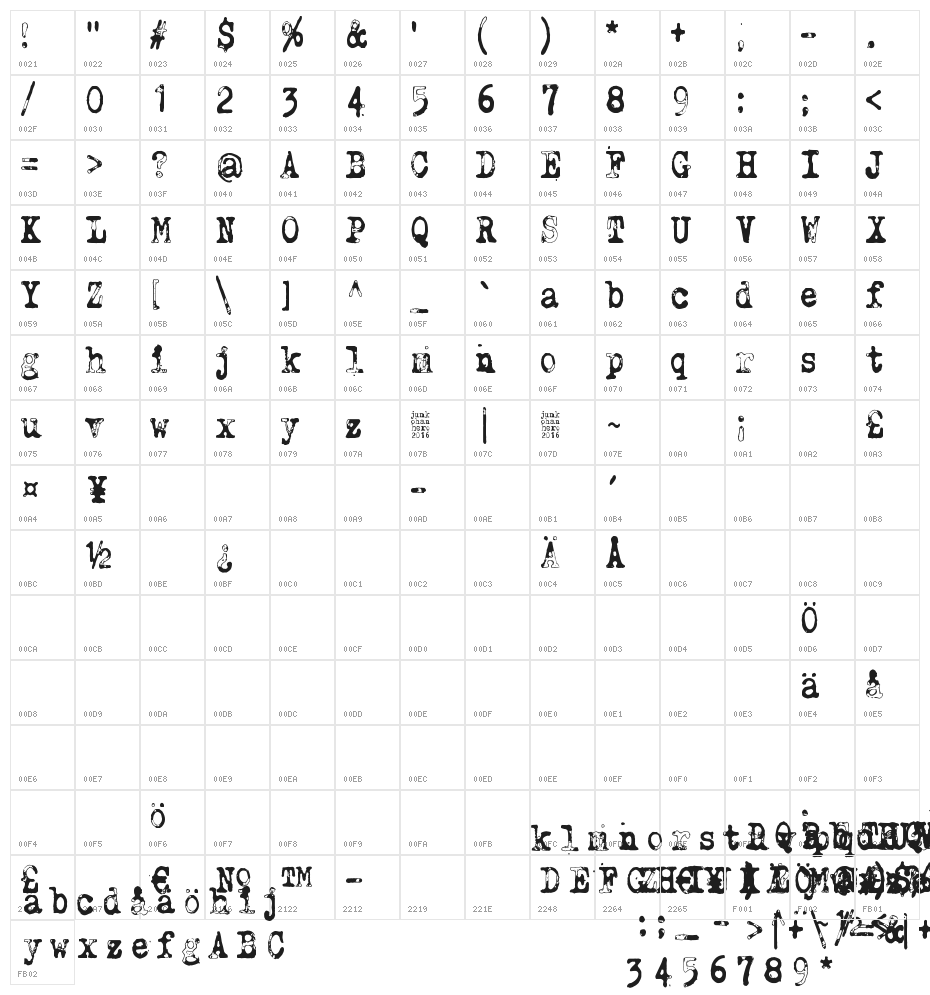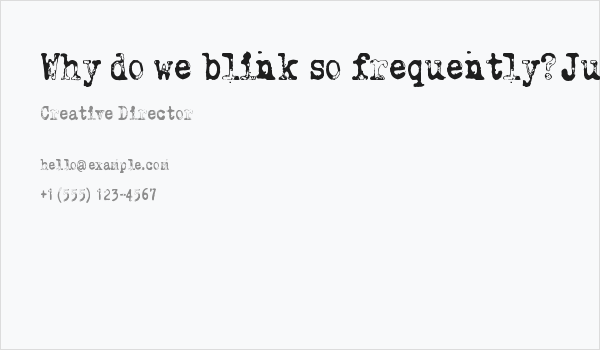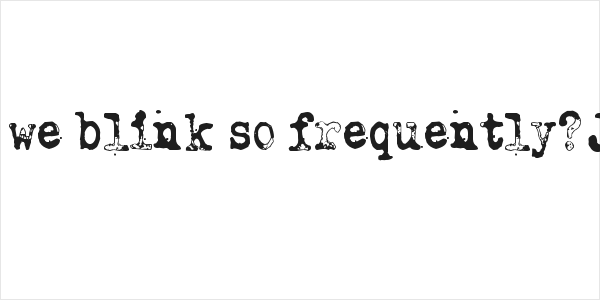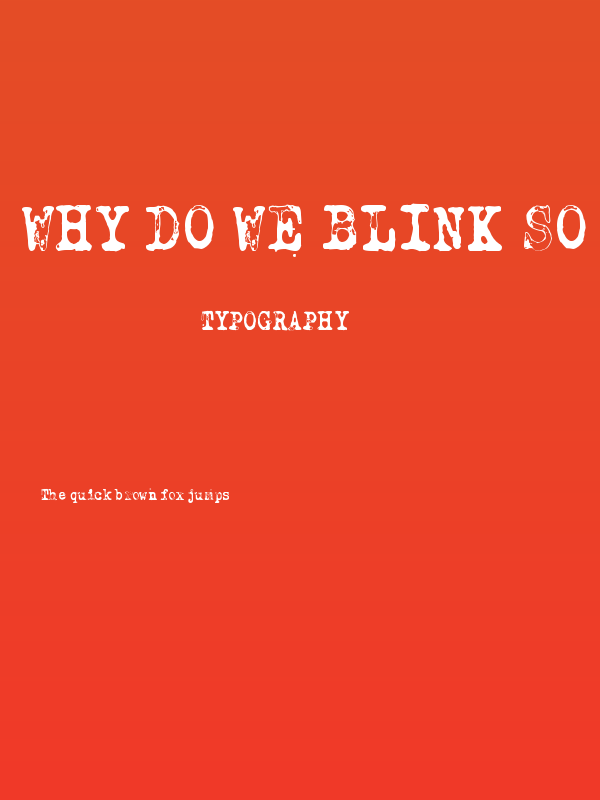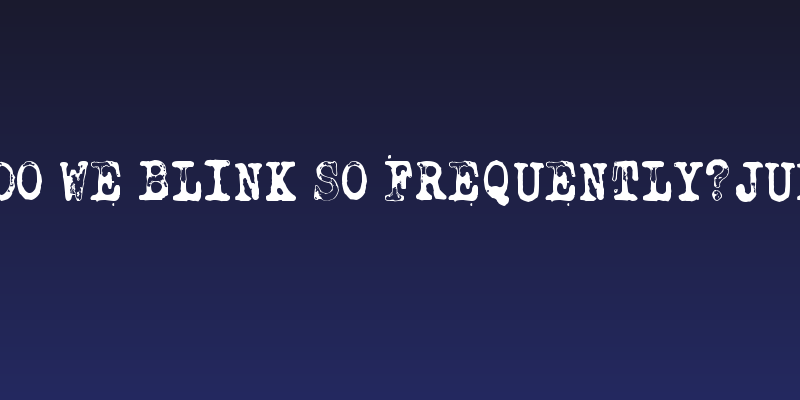
Why do we blink so frequently? Jungle Font
Why do we blink so frequently? Jungle Description
This font features a highly decorative and artistic style, characterized by its unique, irregular shapes and distressed textures. Each letter appears as if it has been splattered with ink, creating a dynamic and chaotic visual effect. The font's bold and thick strokes are contrasted by areas of negative space, giving it a grungy and organic feel. The uppercase and lowercase letters maintain a consistent theme, with numbers and special characters following suit, adding to its cohesive yet unpredictable appearance. This font is ideal for projects that require a bold statement or an edgy, artistic touch.
Why do we blink so frequently? Jungle